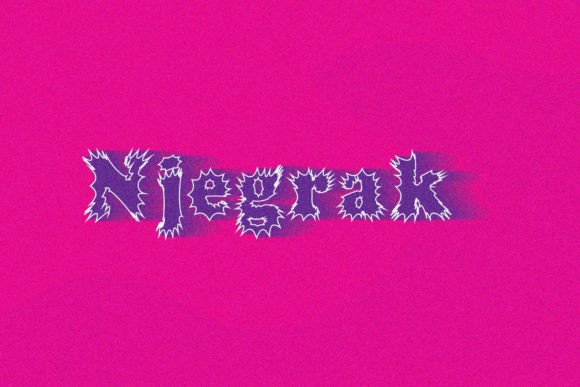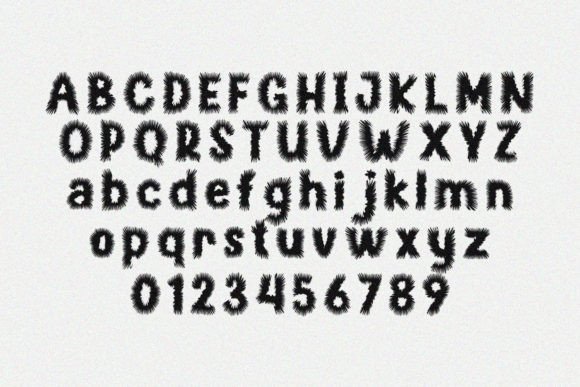
Introduction to Njegrak Font
As a designer, you know the thrill of stumbling upon the perfect font to elevate your creative project. The moment when everything falls into place, and your vision takes shape. For those moments, you need a font that’s more than just aesthetically pleasing – you need one that makes a statement. Enter the Njegrak Font, a game-changing design resource that’s sure to leave a lasting impression.
With its bold and striking appearance, the Njegrak Font is perfect for designers seeking to add a touch of high-quality uniqueness to their work. Whether you’re working on a free download or a paid project, this font is sure to deliver. Its distinctive and unusual shapes not only grab attention but also add a layer of personality to any design. Plus, its transparent background makes it easy to integrate into any creative project.
Key Features of Njegrak Font
- Features a transparent background, allowing for flexibility in design applications
- Includes a range of characters, including uppercase and lowercase letters, numbers, and symbols
- Unique, modern design that can add a touch of sophistication to any creative project
Honest Review: Njegrak Font
I recently came across the Njegrak Font while searching for a unique design resource for my creative project. I was immediately drawn to its high quality and versatility.
- ✨ Unique design style that sets it apart from other fonts
- ✨ Clear and transparent background, making it easy to use on any design
The Njegrak Font is perfect for designers who want to add a touch of sophistication and elegance to their designs. Its high-quality design makes it suitable for a wide range of creative projects, from branding to publishing.
- ⚠️ Limited font sizes and styles available
- ⚠️ Not ideal for designers who prefer a more minimalist design aesthetic
Overall, I’m impressed with the Njegrak Font and would definitely recommend it to designers looking for a high-quality, unique font for their creative projects.
Tips for Getting the Most Out of Njegrak Font
Use Njegrak Font with a transparent background to give your design a more modern look. Experiment with different font sizes and styles to add depth and visual interest to your project. You can also pair it with other design resources, such as graphics and images, to create a cohesive and engaging visual identity.
Njegrak Font is suitable for various design projects, including logos, business cards, and social media graphics. It’s also a great choice for creative projects that require a unique and eye-catching font. With its high quality and versatility, Njegrak Font is a valuable addition to any design resource collection.